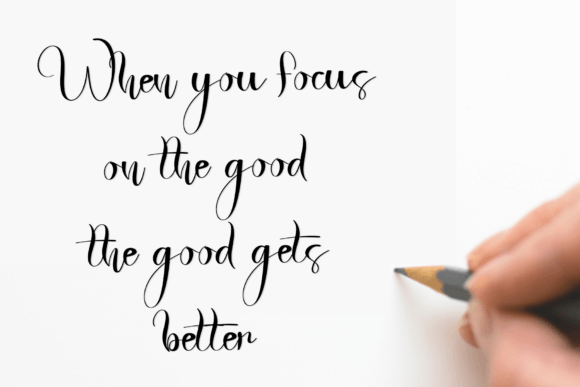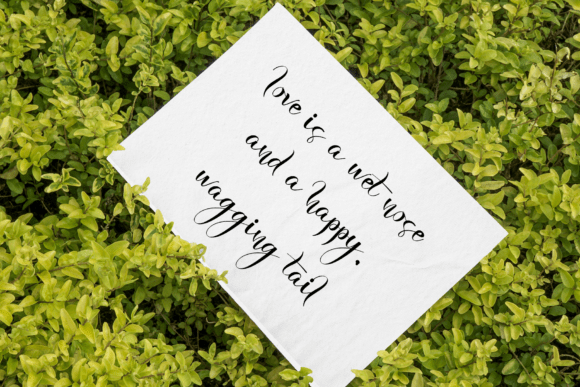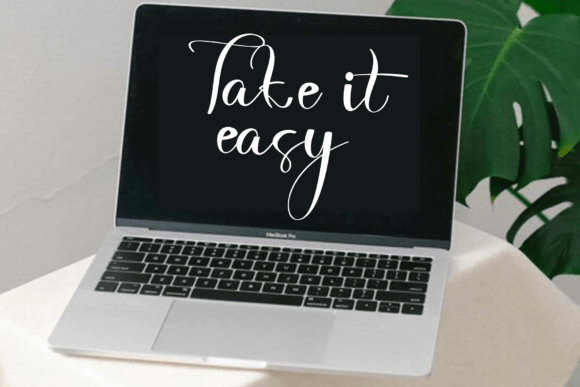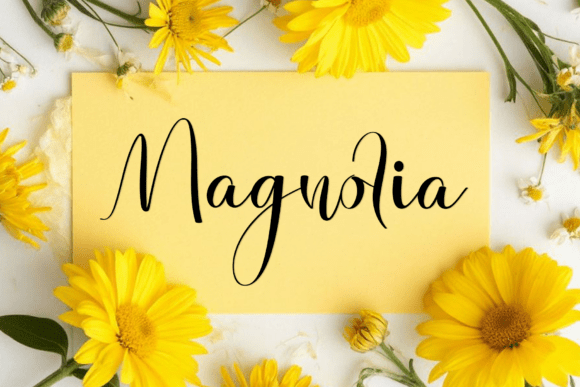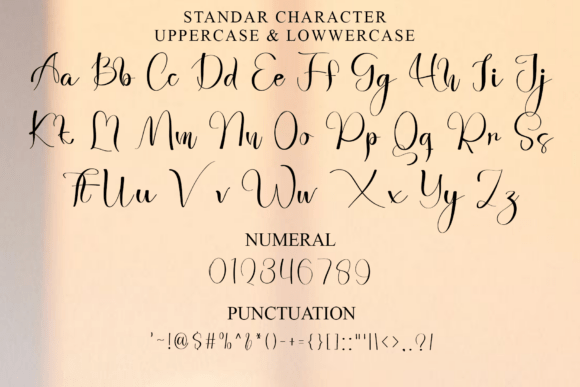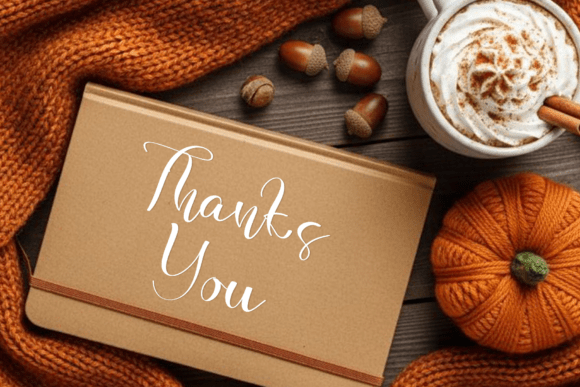
Introduction to October Calligraphy Font
October Calligraphy is a truly enchanting handwritten script that captures the soul of autumn elegance with every stroke.
Designed to feel effortlessly personal yet polished, this font blends high-contrast letterforms with whimsical curves and delicate flourishes that make it stand out from standard calligraphy fonts Its elongated ascenders and uniquely looped terminals give it a poetic rhythm, making every word look like a work of art.